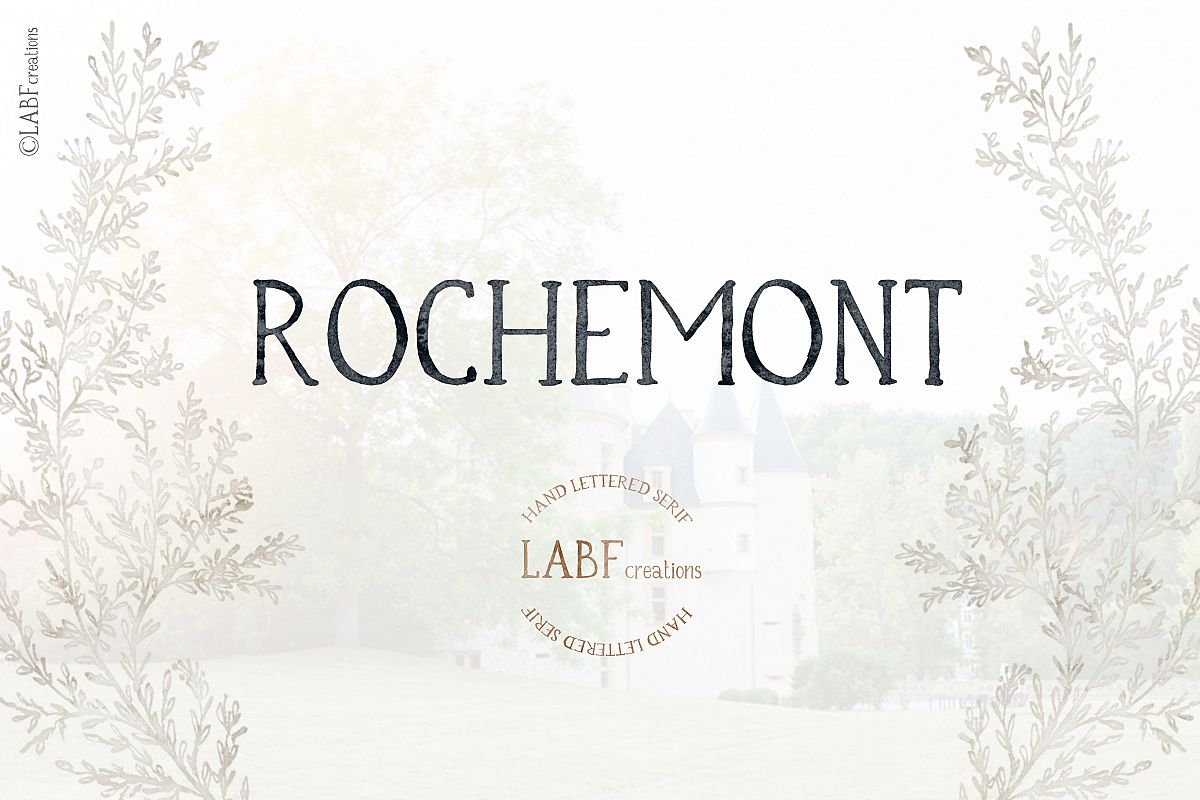
Rochemont. Classic and rustic Hand lettered serif font
Classic and rustic hand lettered font Rochemont.
Hand drawn with l watercolors. Inspired with old french castle style.
Antique, chic and Little bit rustic. Classic elegant and timeless.
Will perfectly works in couple with modern calligraphy fonts.